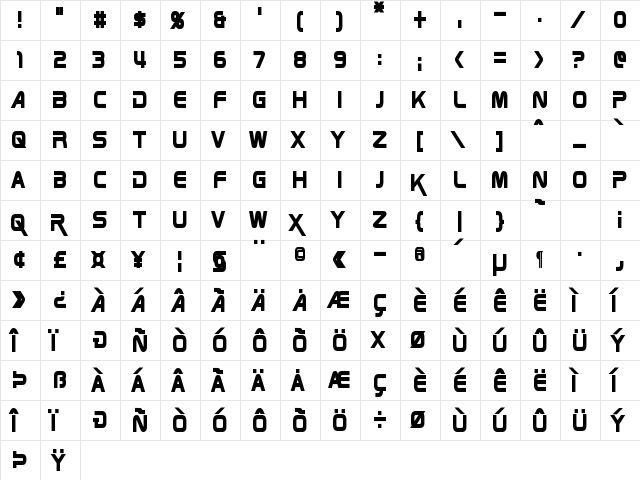
Zebulon Condensed Bold
Design Context for Zebulon Condensed Typeface
Zebulon Condensed takes a measured approach to typography — its balanced proportions and neutral character make it a reliable workhorse for both digital and print work. Its bold stroke weight gives it real presence on the page. The condensed width makes it efficient for tight spaces without sacrificing legibility.